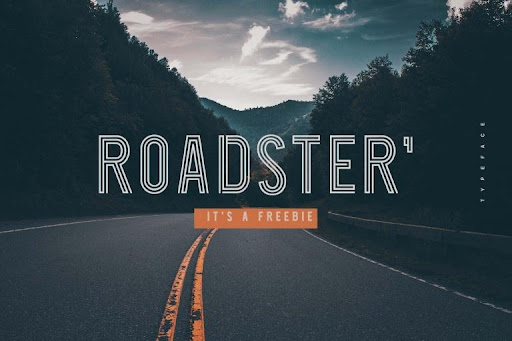
25 Awesome Fonts for YouTube Videos to Grow Your Channel
YouTube allows you to choose a screen from your video as your thumbnail or create a customized one. But, even if you have the best background for your video thumbnail or banner, choosing a complimenting font can be tricky. Here are 25 best fonts for YouTube thumbnails and banners.
According to YouTube statistics, 90% of popular videos tend to have customized thumbnails. So, as a YouTube content creator, you too should consider customizing your video’s thumbnails. It will help you stand apart from your competitors and grow your subscribers by increasing your content’s click-through rate.
We have compiled a list of 25 fonts for YouTube thumbnails and banners that will impress your audience and help you build a brand image for yourself.
We also share a few tips and tricks that can help you reap the maximum benefits from these awesome typefaces.
25 Cool Fonts for YouTube Banners and Thumbnails
1. Impact (free)
One of the most popular fonts for thumbnail text, Impact is a simple but bold font for YouTube videos.
It is a free font and can be adjusted according to your taste to make an impact on your audience. Ah, that wordplay!
One of the most popular YouTube creators, PewDiePie, has been using Impact font in many of his videos for a long time. He has over 100 million subscribers, so he is undoubtedly winning the click-through rate game by creating visually-pleasing thumbnails with quirky imagery and complementing fonts.
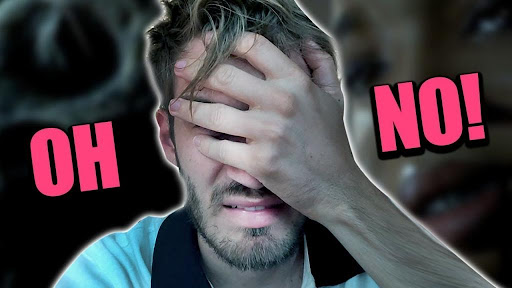
2. River Drive (free for personal use)
Even if you have basic editing skills, you can adjust this font to look like it’s a part of the background image. Its “heavy chalk” effect makes it bold and impactful, so when viewers are scrolling through the trove of YouTube videos, this font can make them stop and click on your video.
3. DK Mandarin Whispers (free for personal use)
DK Mandarin Whispers is one of the cool fonts for YouTube banners and thumbnails, especially if you make lifestyle or travel vlogs.
The font is available in various sizes and styles and can be adjusted as per your preferences to create a catchy banner or thumbnail. DK Mandarin Whispers is a playful and noteworthy font that can blend with different colors, images, and stickers to create a thumbnail that your audience will love to click on.
4. Bebas (free)
This is one of the best fonts for YouTube videos to highlight your thumbnail text and catch your audience’s attention.
Bebas is perfect for instructional videos like recipe tutorials, make-up tutorials, and DIY videos. This font looks equally impactful on thumbnails and banners and looks the best when used in white and black outlines, like the image below. Bebas is free to use for both personal and commercial projects.
Bebas’ updated version Bebas Neue comes with a slenderer letter set and can be used for free in Adobe fonts.
5. Juan Cock (free for personal use)
Juan Cock is a modern and uniquely stylish font with a masculine vibe. If your target audience is male, this masculine font can be a good choice for your YouTube thumbnails.
This edgy font is minimalist and versatile, and thus you can use it in YouTube banners, thumbnails, in-video texts, subtitles, and logos. The font comes in lower and upper cases.
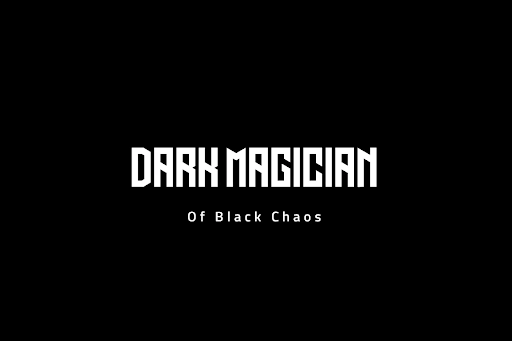
6. Beauty and the Beast (free for personal use)
The font is aptly named as it blends boldness with flamboyance. Beauty and the Beast font is suitable for highlighting the thumbnail text and making your video stand out. It looks the best when used on a colorful background.
It is used chiefly in life-hack videos; however, the font has also been seen in streaming and gaming videos. Alisha Marie, a content creator with over 8 million subscribers, used to love this font but has switched to much simpler fonts since.
7. Badaboom BB (free for personal use)
Badaboom BB is one of the best fonts for YouTube thumbnails that screams “Attention!”. Even the name is quirky enough to make you grin.
If your content is experimental and fun, then this font can be a perfect choice. Wengie loves this font and constantly uses it on her thumbnails, and the font looks the best when used in bright colors and strong outlines.
8. Config Rounded (purchase only)
If you want to give your YouTube thumbnails a sleek and professional look, then Config Rounded can be the best font for your YouTube thumbnails.
The rounded edges of this font add a touch of simplicity. Its variety of shapes and sizes makes it versatile enough to be used in thumbnails, banners, subtitles, in-video texts, and even logos.
This font is a suitable option for business-related or informational channels.